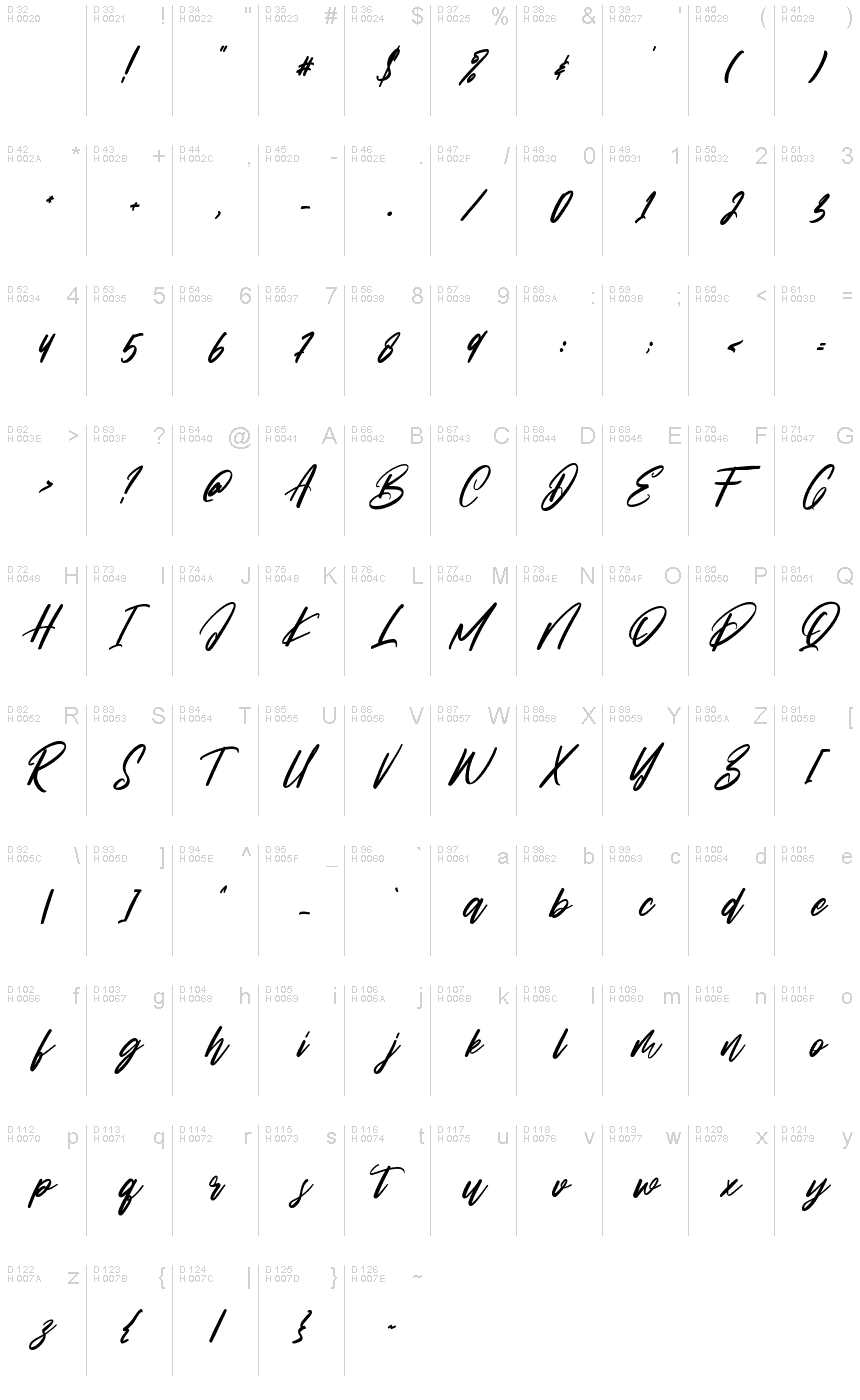
Gunstages
Gunstages is a handwritten, light and narrow font designed by Maulana Creative. It’s perfect for creating unique logos, invitations, cards, posters and more. Express your creativity with its wide range of characters and make eye-catching projects that stand out!